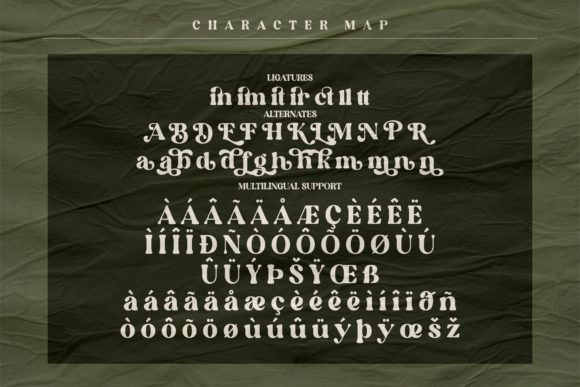
Elinga Font
Elinga is a bold, stylish and thick lettered serif font. This font is PUA encoded which means you can access all of the glyphs and swashes with ease!